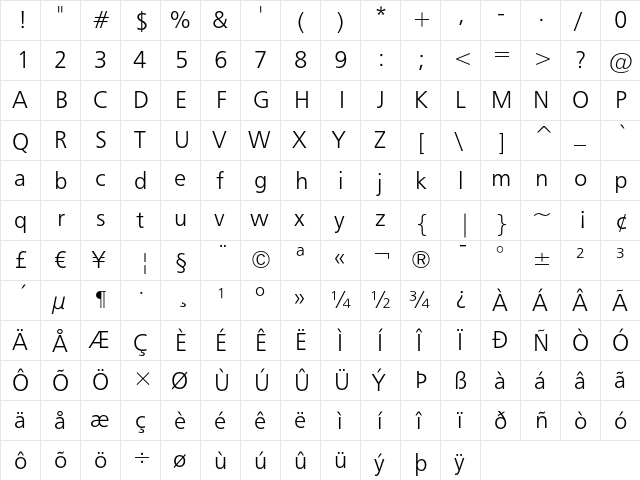
Humanist 777 Light
Design Context for Humanist 777 Typeface
Humanist 777 offers clean, dependable letterforms without strong stylistic allegiance, making it a practical choice for designers who need flexibility. Its slender proportions lend an understated elegance to any composition.
Pro Tip: Use Humanist 777 in both headline and body roles to test its range before committing to a single application.